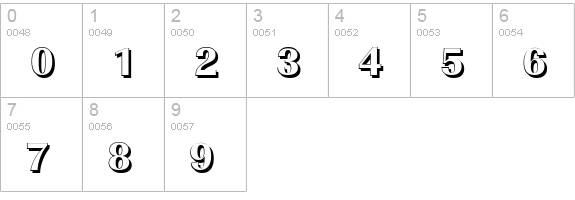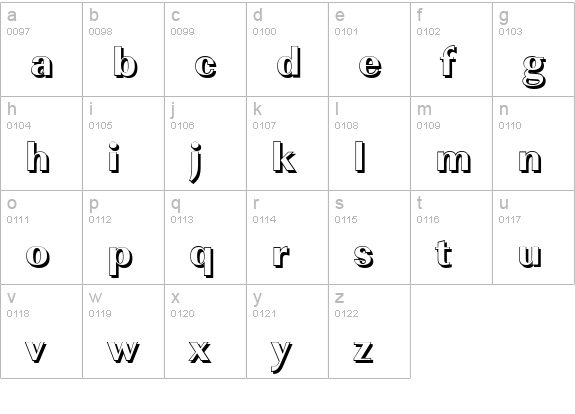
ImperialSh-Xbold-Regular is the standard, neutral variant in the ImperialSh typeface family \xE2\x80\x94 well suited to general body text, paragraphs, and standard typographic work.
ImperialSh-Xbold-Regular font is a stunning display typeface that exudes elegance and professionalism. With its bold, commanding presence and intricate detailing, this font is ideal for making a statement in your design projects. Whether you're creating posters, logos, or headlines, ImperialSh-Xbold-Regular will ensure that your message is conveyed with style and impact. What makes ImperialSh-Xbold-Regular font even more appealing is that it is available for free download at FontsMarket.com. This means you can easily access this premium-quality font without any cost, making it a valuable addition to your font collection. Don't miss out on the opportunity to enhance your designs with the beauty and sophistication of ImperialSh-Xbold-Regular font. Download it today and elevate your creative projects to the next level.